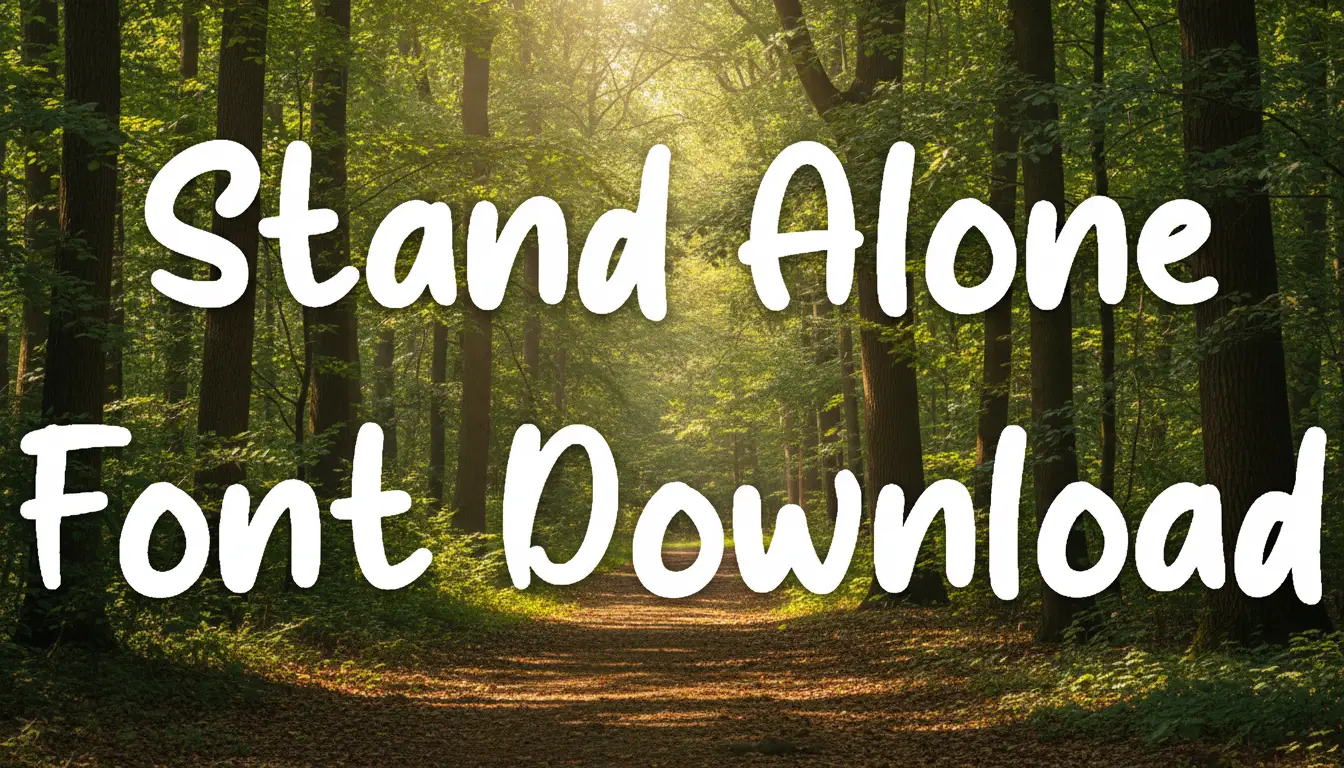
Stand Alone Font
Stand Alone
Stand Alone is a script font designed by MJType (Muhamad Junaid). Its flowing, pen-made letters give names and short phrases a personal, polished look. It's a free download, and you can try it with your own text in the preview above first.
What You Can Type With Stand Alone
Stand Alone covers the full alphabet in upper and lowercase, plus all ten numbers, so you can set names, dates and prices without switching fonts. Everyday marks like &, !, ? and @ are there too. Thanks to its accented letters, it also works for Spanish, French, German, Portuguese and Italian, not just English.
Where Stand Alone Works Best
Designers usually reach for fonts like Stand Alone when they're making wedding invitations, logos and signature-style headings. Script fonts read best in short bursts, so keep it to names, titles and one-line quotes. Skip all caps: script capitals are drawn to start a word, not to fill one.
Does Stand Alone support accented letters?
Yes. Stand Alone includes the accented letters needed for Spanish, French, German, Portuguese and Italian, so it works for more than just English.